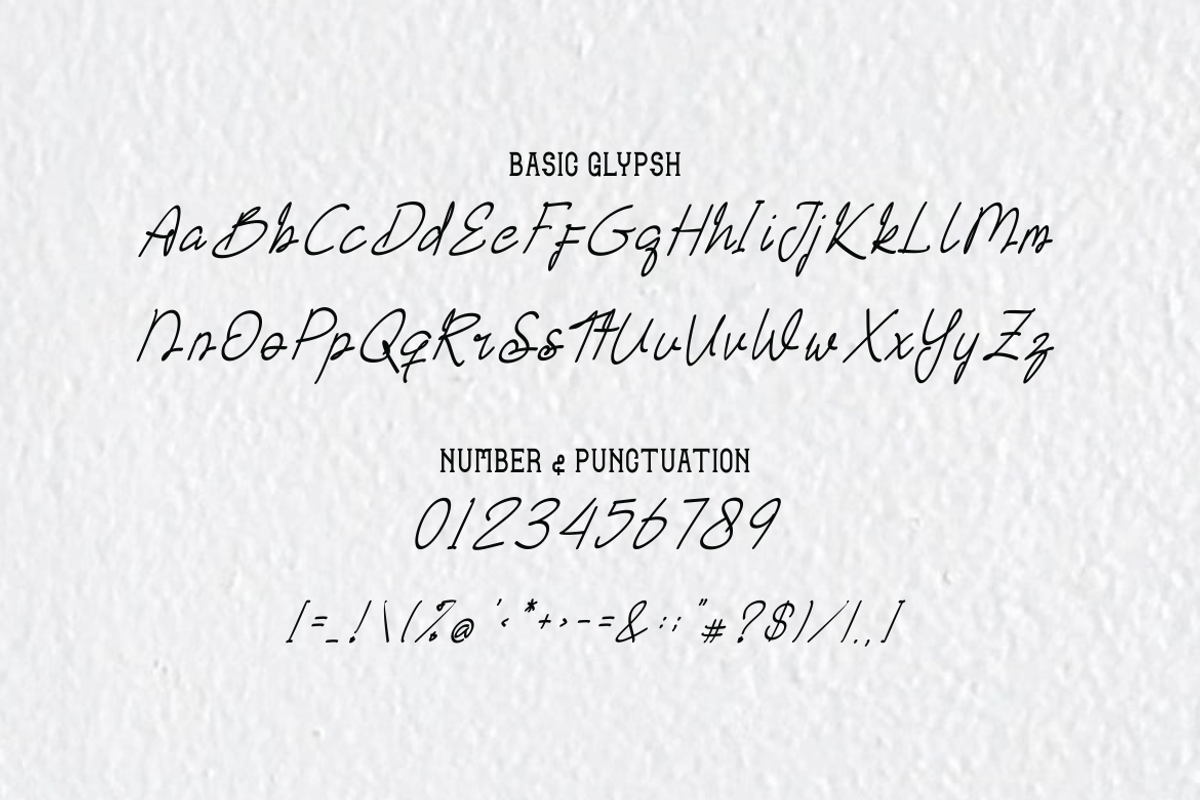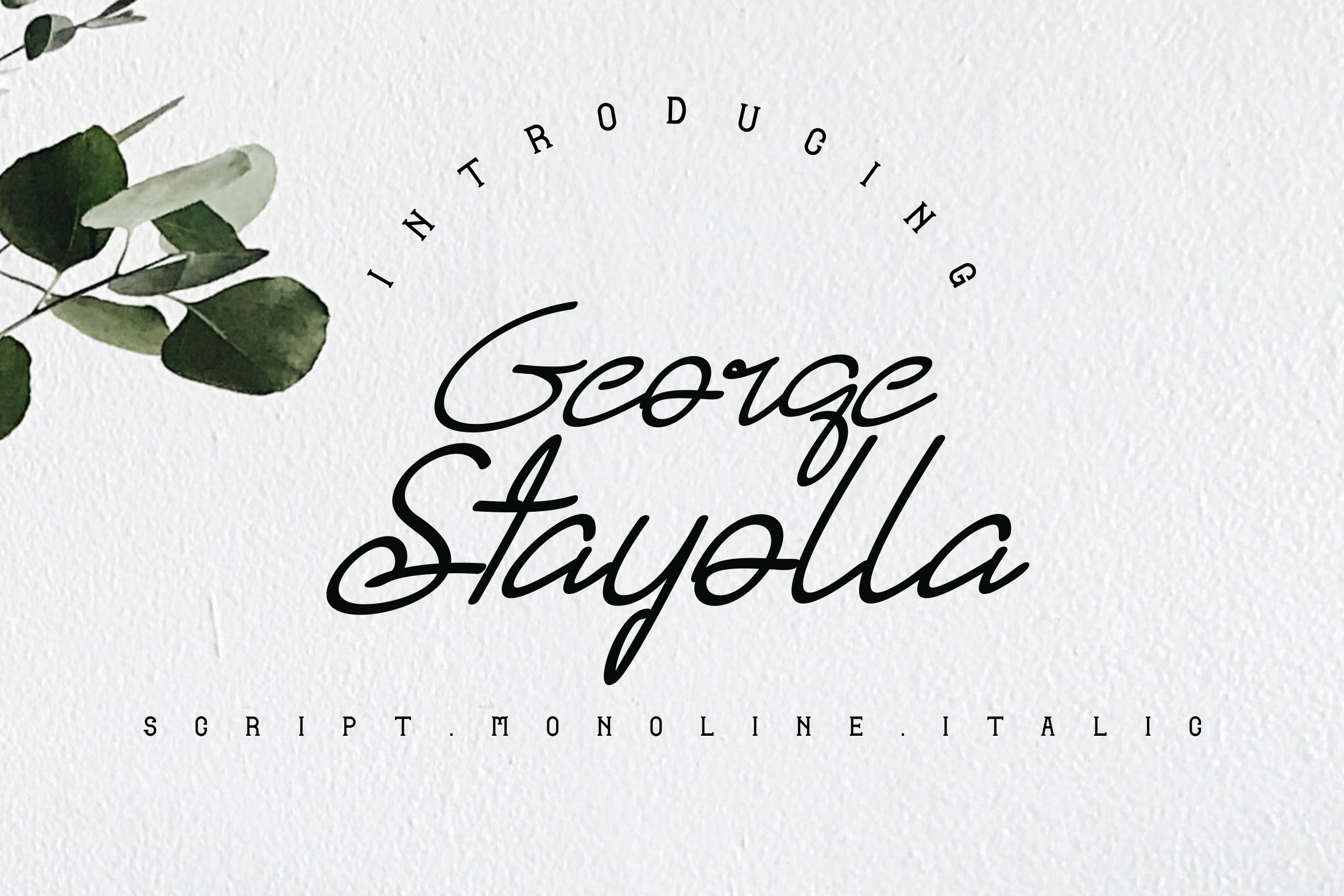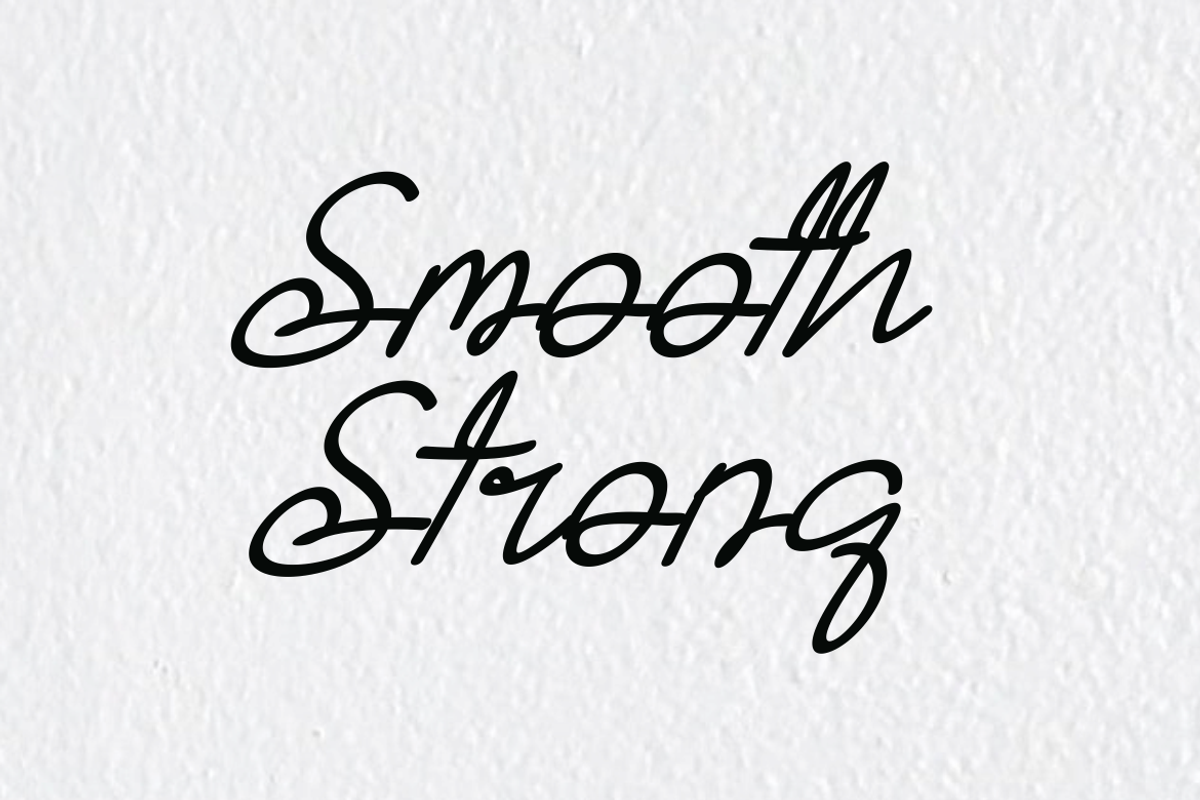
George Stayolla nd Font
George Stayolla nd Font It has a elegant, classy look and modern. It’s a great font for fashion, apparel projects, signature, album cover,logo, branding, magazine, social media, & advertisements, but also works great for other projects.